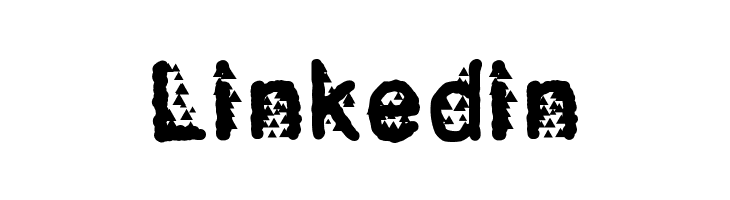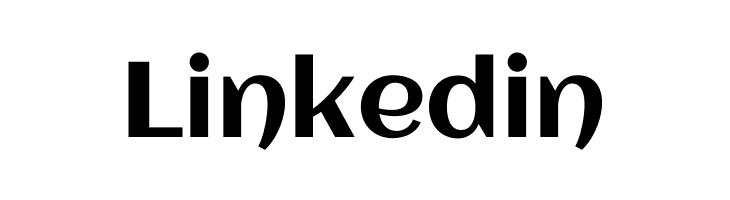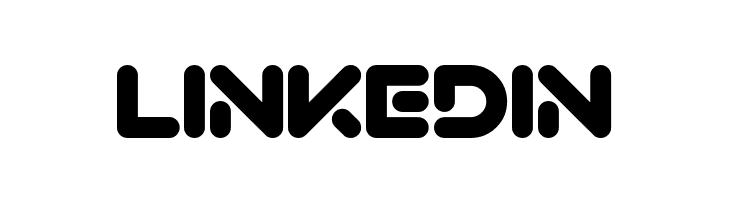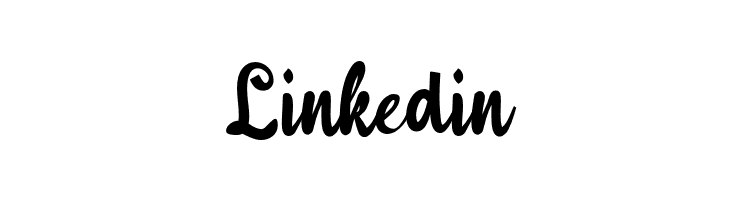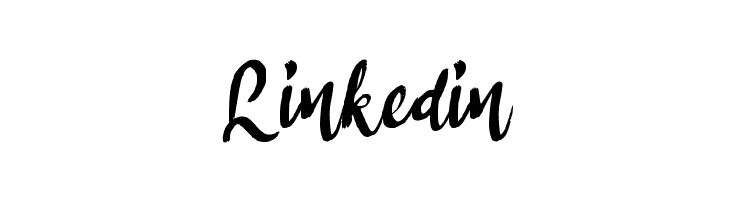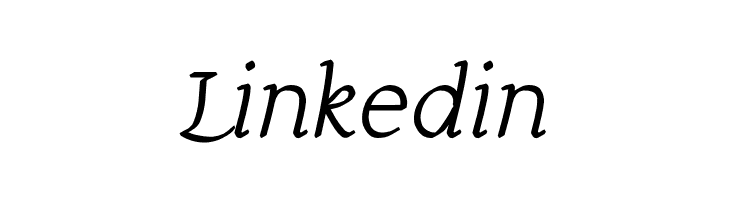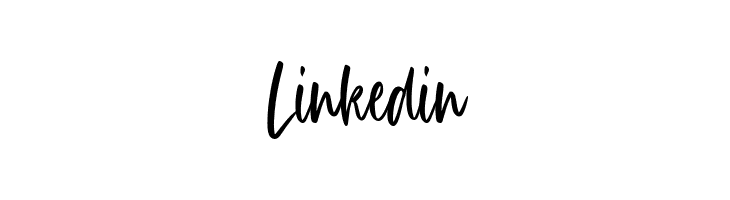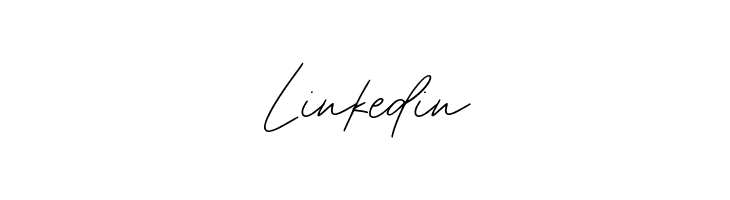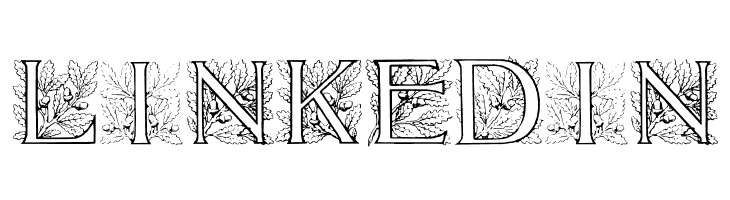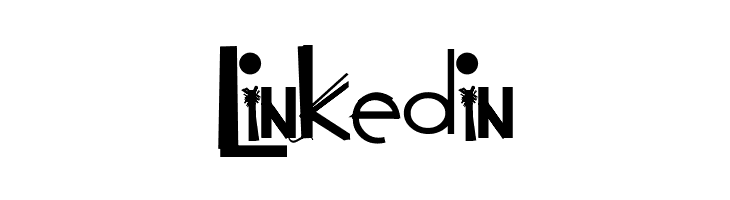
A bold, intricate blackletter font with medieval flair.
A bold, rounded font with a strong, cohesive presence.
An elegant script font with a slight slant and moderate stroke contrast.
A playful, child-like handwritten font with irregular strokes and spacing.
A bold, playful handwritten font with a casual and friendly style.
A bold slab serif font with strong, block-like serifs and uniform stroke width.
A bold slab serif font with a classic yet modern appeal.
A dynamic and flowing script font with elegant, connected letterforms.
A bold, modern font with geometric influences and unique character curvature.
A bold, modern font with sharp, angular lines and high contrast.
A modern, geometric font with clean lines and thin strokes.
A bold, playful font with rounded, slightly irregular letterforms.
A bold, modern sans-serif font with excellent readability and a strong presence.
A playful, handwritten font with bold, rounded strokes and a casual style.
A bold, italicized font with a playful and dynamic style.
A playful, italicized handwritten font with smooth, rounded strokes.
A playful, handwritten font with smooth curves and bold strokes.
A bold, italic font with smooth curves and a playful, casual style.
A playful, handwritten italic font with smooth, rounded strokes.
A modern, minimalist font with geometric and linear elements.
A bold, expressive handwritten font with brush-like strokes and artistic flair.
A dynamic and energetic handwritten font with fluid cursive letterforms.
A minimalist, geometric font with thin, clean lines and a modern aesthetic.
A bold, geometric font with rounded edges and a futuristic style.
Ornate decorative initials with acorn and foliage designs.
A bold, playful script font with a handwritten feel.
A bold, playful script font with a handwritten feel and rounded edges.
A delicate, handwritten script font with elegant, flowing strokes.
A modern, elegant handwritten script with fluid, graceful strokes.